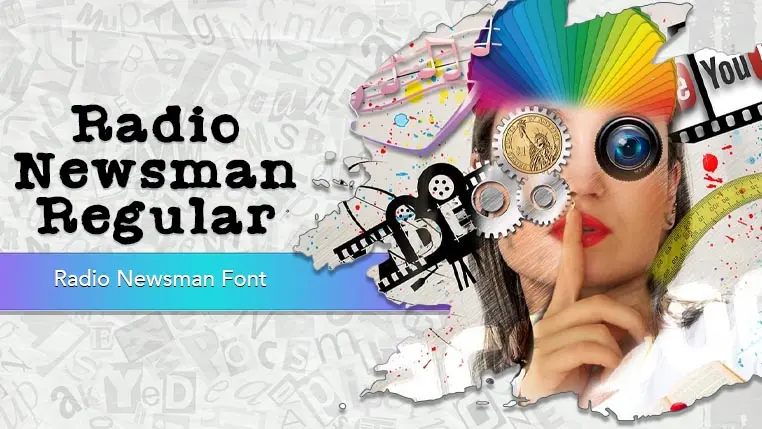
The Radio Newsman font family may be ideal for you if you enjoy working on an artistic design project. The lively, expressive look of this typeface, which was created by sharasfonts, makes it ideal for Vintage and Retro Designs, Newspaper and Magazine Headlines and Digital Collages and Mixed Media. You can also use on Social Media Graphics For posts that require a strong, bold, and unique headline that stands out, especially for content related to news, history, or quirky themes. and other light-hearted visual projects.
Regular are the one primary font styles of the Radio Newsman font family. You may build dynamic, visually appealing text layouts with the distinct flair that each style offers. With crisp, readable lines and a relaxed tone.